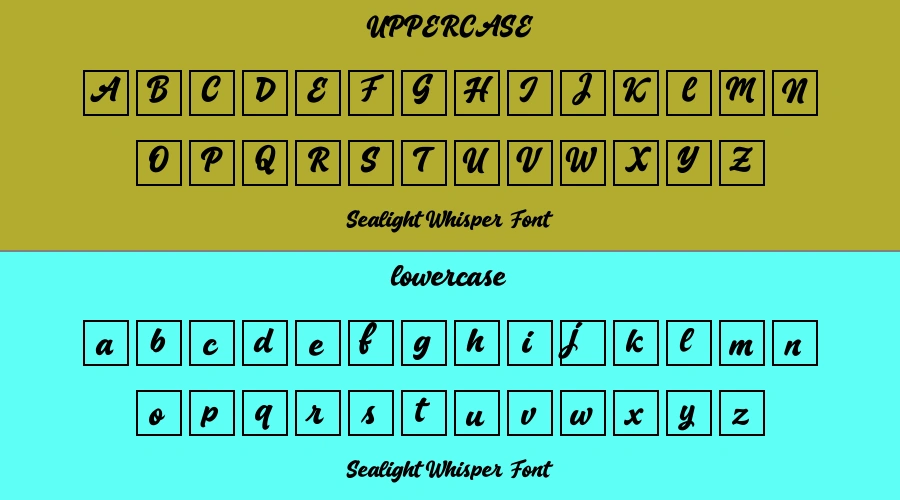
About Sealight Whisper Font
Designed with precision, Sealight Whisper Font merges architectural precision with visual impact in every character. This versatility makes it particularly effective for merchandise graphics, where integrity and market confidence directly impact communication quality. Each letterform demonstrates meticulous craftsmanship.
Technical excellence shines through elements like calculated proportions and historical accuracy, enhancing typographic versatility. In identification tags settings, Sealight Whisper Font proves its worth through superior math typesetting. The thoughtful execution of beak formation and technical tradition ensures professional results.